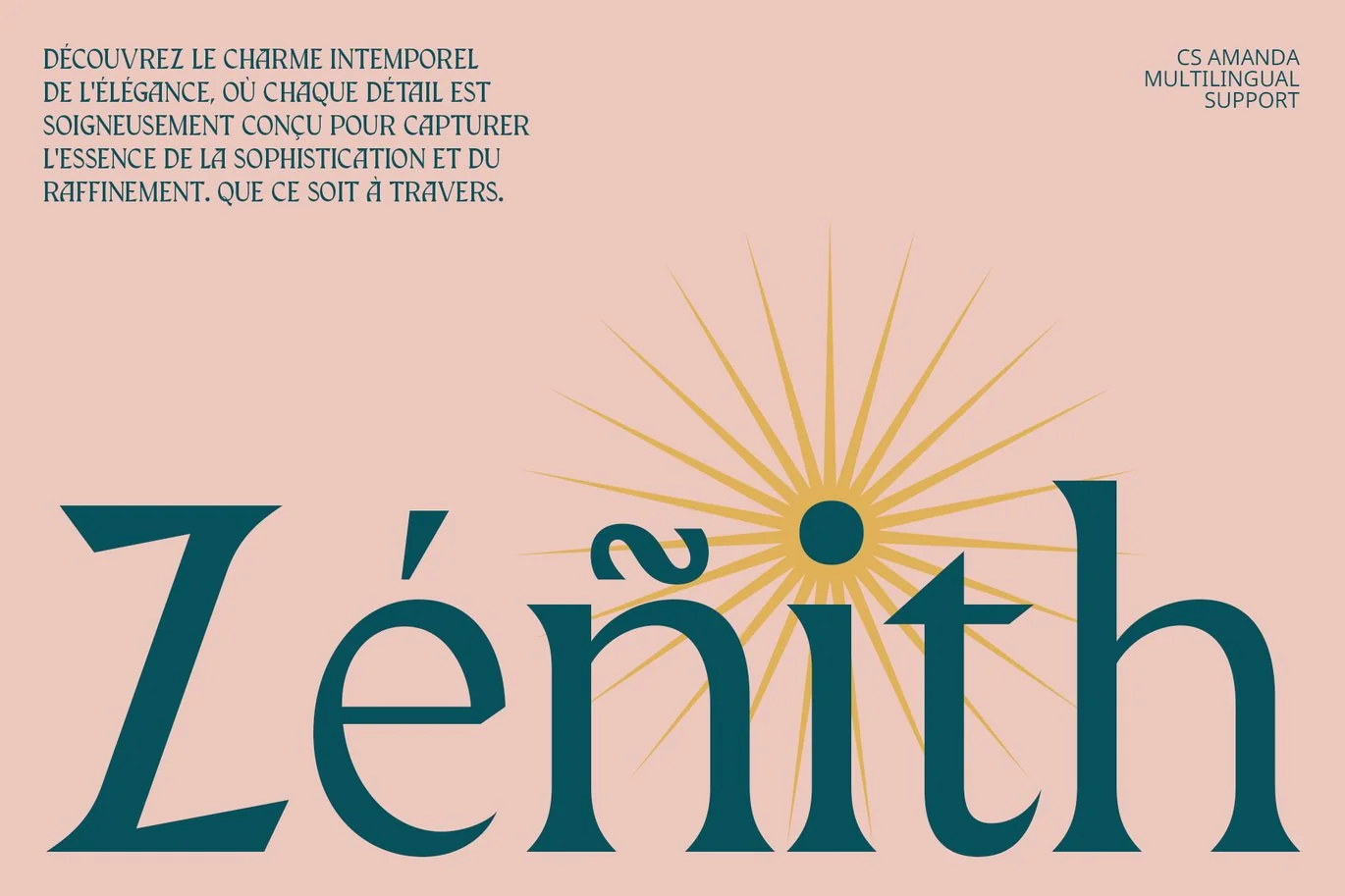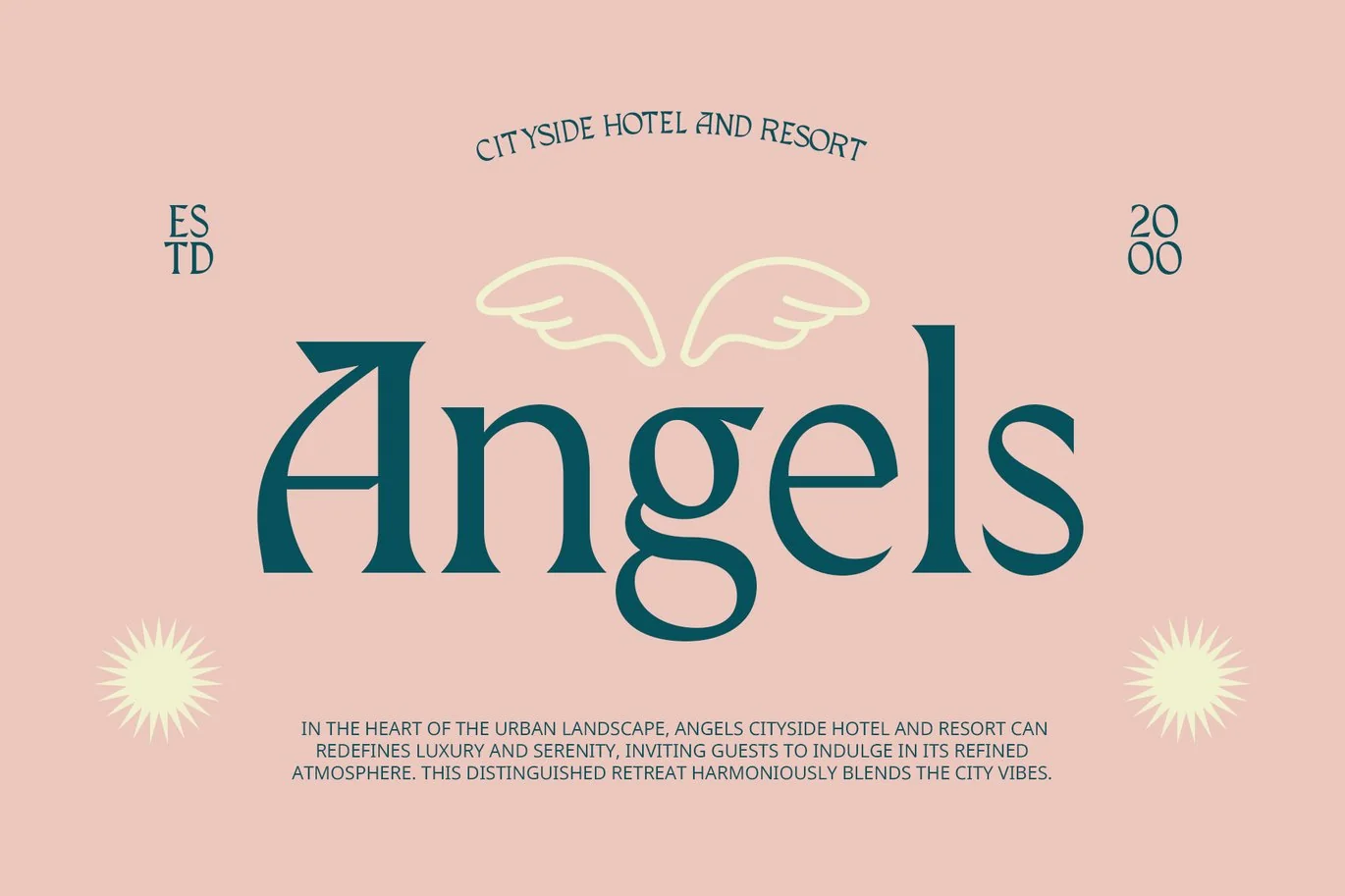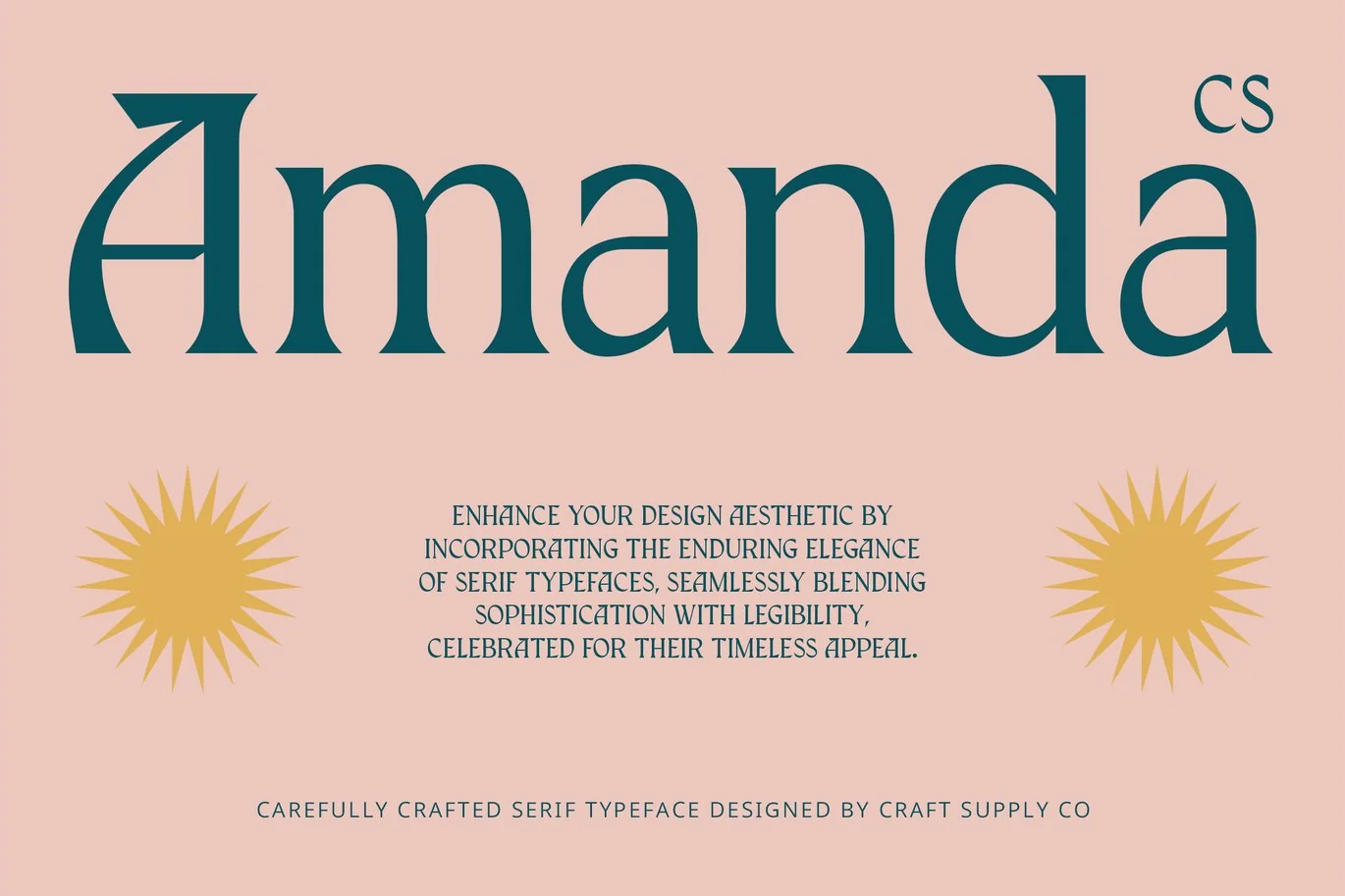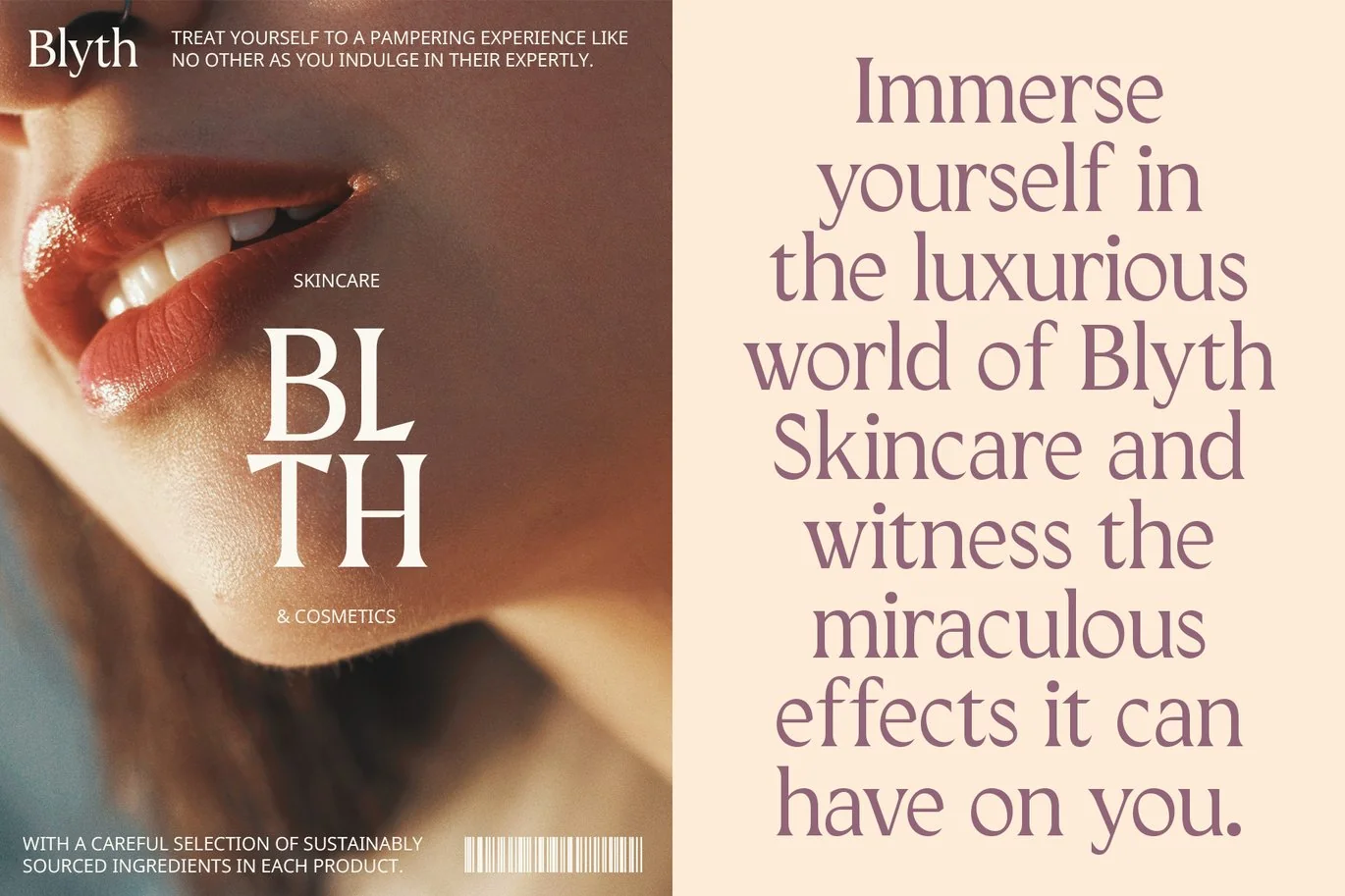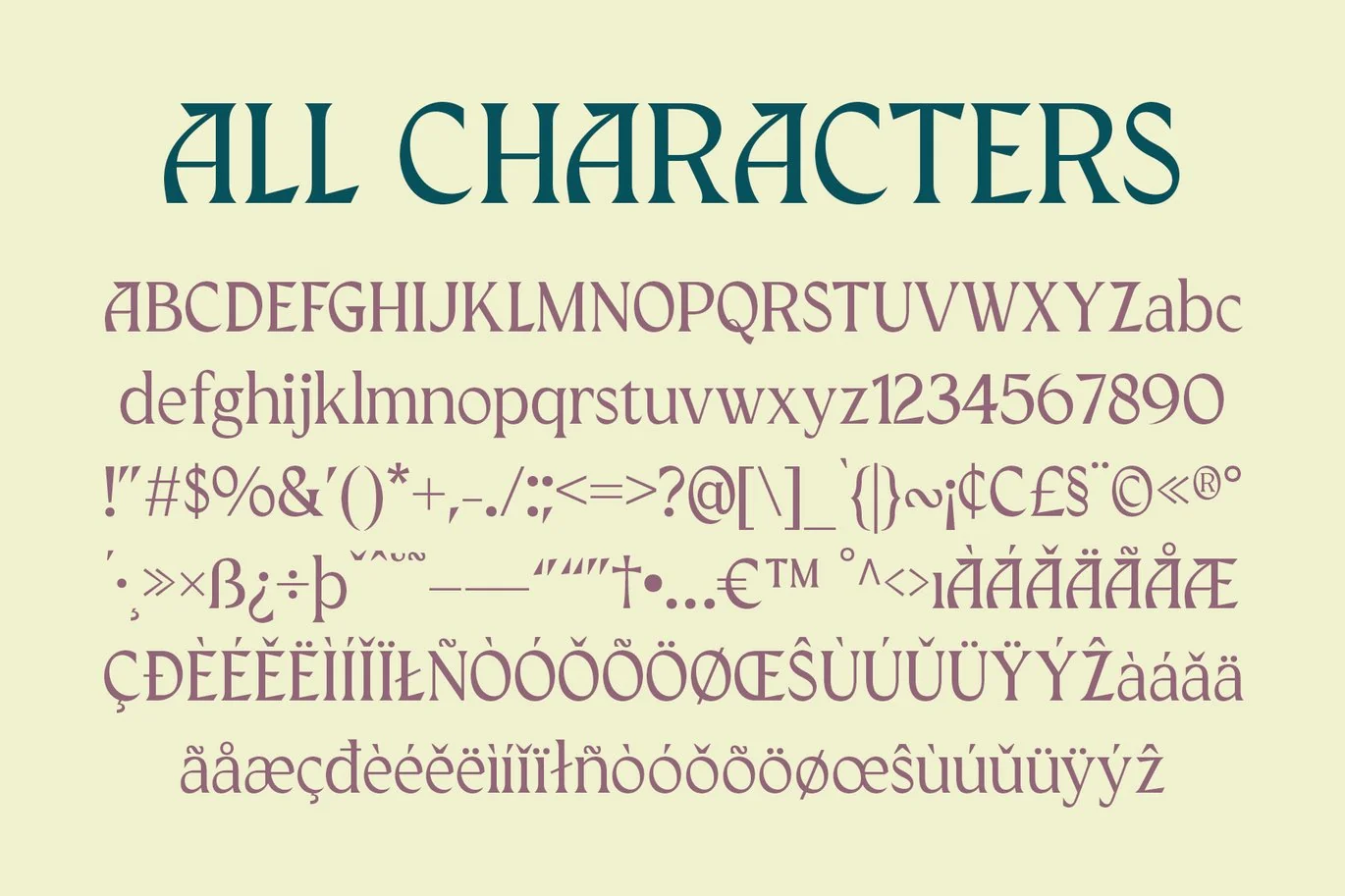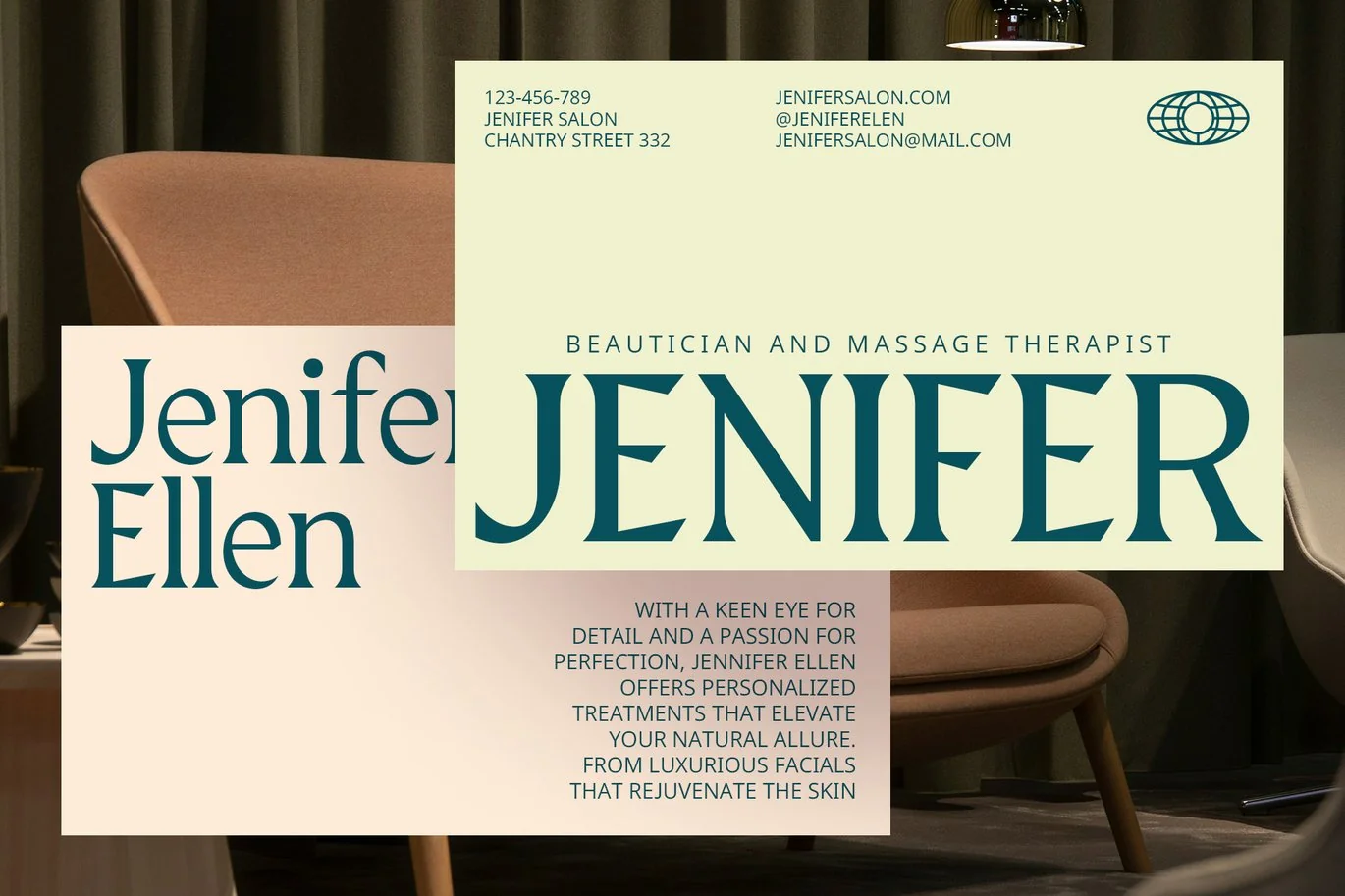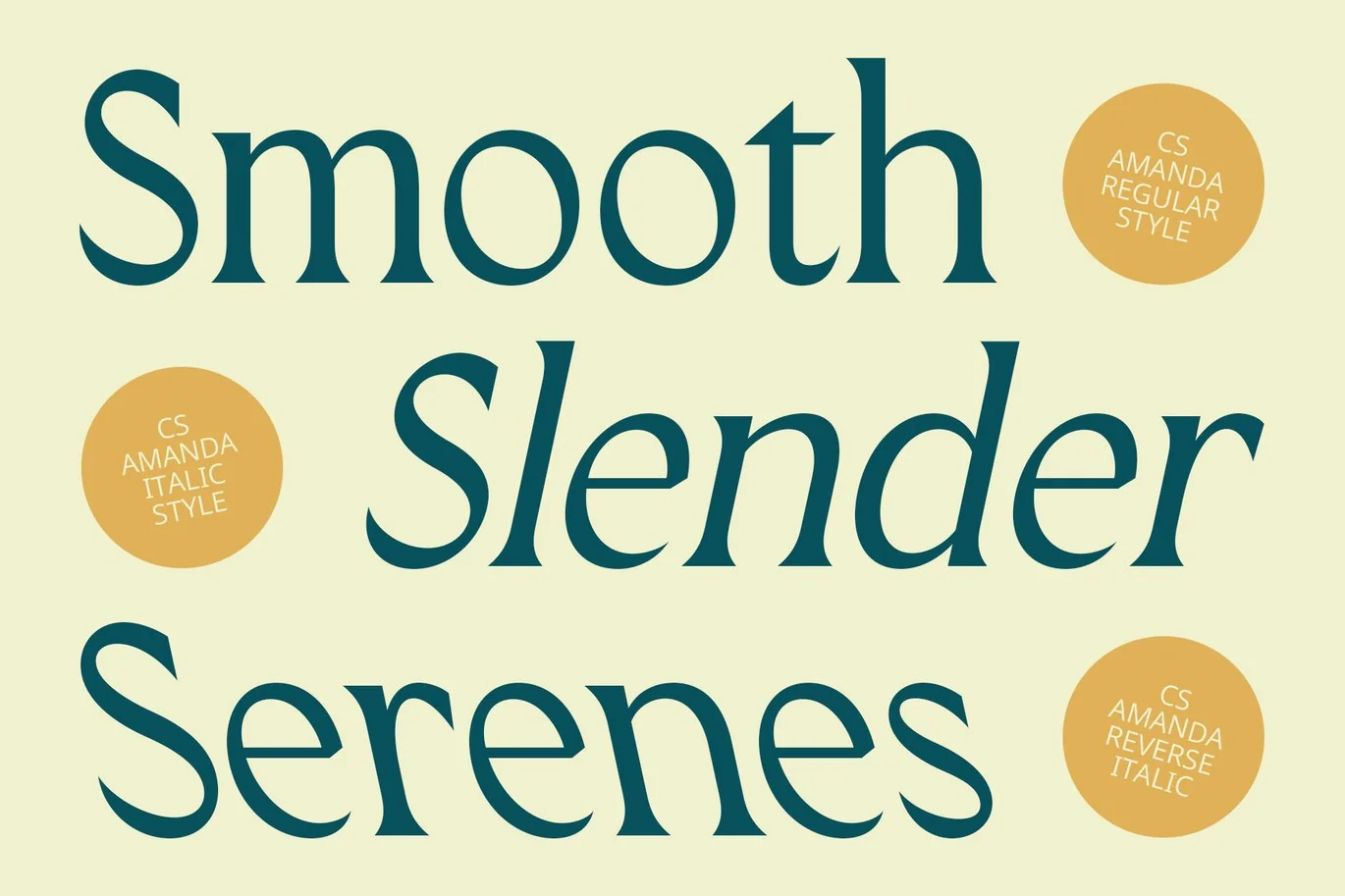
CS Amanda – Elegant Font
CS Amanda Font: Modern Elegance Redefined
Classic Sophistication Meets Modern Design
CS Amanda is a modern serif font that effortlessly combines classic sophistication with contemporary charm. Its elegant design features clean lines and subtle details, making it a striking choice for projects that require a refined and luxurious touch.
Perfect for Luxury and Professional Applications
Ideal for high-end branding, sophisticated editorial layouts, and elegant invitations, CS Amanda brings a touch of luxury and professionalism to every design. Its beauty is both understated and impactful, ensuring that your project stands out with a sense of grace and style.
A Blend of Timeless and Modern Beauty
With its blend of classic elegance and modern design elements, CS Amanda offers a unique aesthetic that enhances any design. Its clean and captivating letterforms embody a timeless beauty that remains fresh and relevant, making it perfect for a variety of upscale applications.
Elevate Your Design with Refined Style
CS Amanda provides a refined and stylish solution for those seeking a font that balances elegance with contemporary appeal. Its sophisticated appearance makes it an excellent choice for designs that aim to impress and convey a sense of luxury and professionalism.